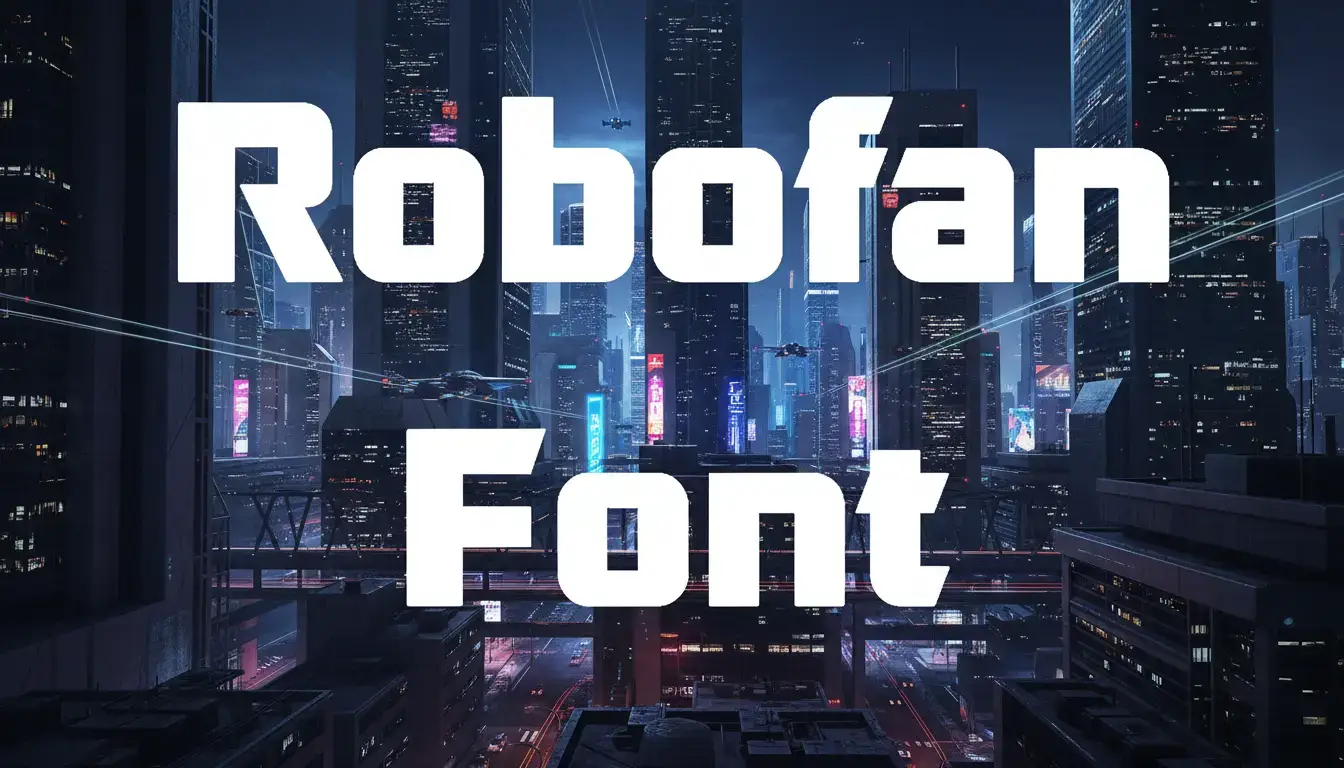
Robofan Font
Robofan is a techno font designed by Cesar Puertas. Squared-off, geometric letters give it a digital, high-tech feel. It's a free download, and you can try it with your own text in the preview above first.
What You Can Type With Robofan
Robofan covers the full alphabet in upper and lowercase, plus all ten numbers, so you can set names, dates and prices without switching fonts. Everyday marks like &, !, ? and @ are there too. It has 26 accented letters, but not the full set for Spanish or French, so test any non-English words first.
Where Robofan Works Best
Designers usually reach for fonts like Robofan when they're making gaming logos, tech branding and futuristic posters. Try it on a dark background with a bright accent color for a sharp, modern look.
Does Robofan support accented letters?
Partly. Robofan has 26 accented letters, but not the complete set for Spanish, French or German. Type your words in the preview above to check before you use it.
What fonts pair well with Robofan?
A simple sans serif like Roboto keeps longer text easy to read next to it.